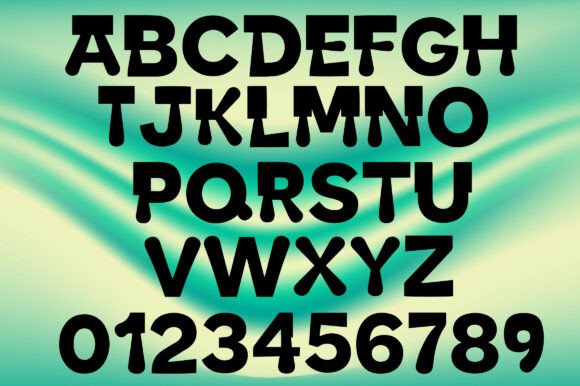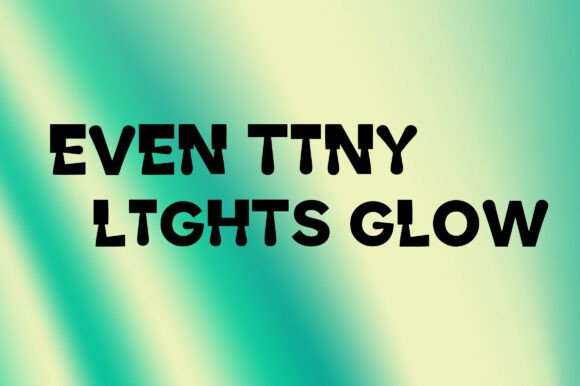
Introducing Clara Font: The Playful Retro-Inspired Display Font
In the world of typography, fonts play a crucial role in conveying messages, evoking emotions, and creating brand identities. For designers and crafters, finding the perfect font can make all the difference in making a project stand out. If you’re on the hunt for a bold, eye-catching, and unique typeface, look no further than Clara Font. In this article, we’ll dive into the world of Clara Font, exploring its features, uses, and benefits.
What is Clara Font?
Clara Font is a bold display font that embodies a playful retro-inspired style with soft rounded details. Its thick uppercase letterforms, smooth curves, and charming geometric shapes create a fun and friendly look that’s sure to capture attention. The font features uppercase letters A–Z and numbers 0–9, making it perfect for a variety of design projects.
Key Features of Clara Font
• Bold and Eye-Catching: Clara Font is designed to make a statement. Its bold and thick uppercase letterforms ensure that your message gets noticed.
• Playful Retro-Inspired Style: The font’s retro-inspired style adds a touch of nostalgia and playfulness to your designs.
• Soft Rounded Details: The soft rounded details of Clara Font give it a friendly and approachable feel.
• Uppercase Letters and Numbers: The font features uppercase letters A–Z and numbers 0–9, providing a wide range of design possibilities.
Uses of Clara Font
Clara Font is a versatile typeface that can be used in a variety of design projects, including:
• Logos and Branding: Create a memorable brand identity with Clara Font’s bold and eye-catching style.
• Posters and Flyers: Add a touch of playfulness and fun to your posters and flyers with Clara Font.
• Packaging Design: Make your product stand out on store shelves with Clara Font’s unique and charming style.
• Headlines and Titles: Use Clara Font to create attention-grabbing headlines and titles for your blog posts, articles, and social media graphics.
• Social Media Graphics: Add a pop of personality to your social media graphics with Clara Font’s playful and retro-inspired style.
• Creative Projects: Clara Font is perfect for crafters and designers working on creative projects, such as handmade cards, invitations, and DIY crafts.
Benefits of Using Clara Font
So, why choose Clara Font for your design projects? Here are just a few benefits:
• Unique and Memorable: Clara Font’s bold and playful style ensures that your designs will be remembered.
• Easy to Read: Despite its bold style, Clara Font is easy to read, making it perfect for headlines and titles.
• Versatile: Clara Font can be used in a variety of design projects, from logos and branding to social media graphics and creative projects.
• Time-Saving: With Clara Font, you can create professional-looking designs in no time, saving you time and effort.
In conclusion, Clara Font is a bold, playful, and versatile display font that’s perfect for designers and crafters looking to add a touch of personality to their projects. With its thick uppercase letterforms, smooth curves, and charming geometric shapes, Clara Font is sure to capture attention and leave a lasting impression. Whether you’re working on logos and branding, posters and flyers, or social media graphics and creative projects, Clara Font is a great choice.